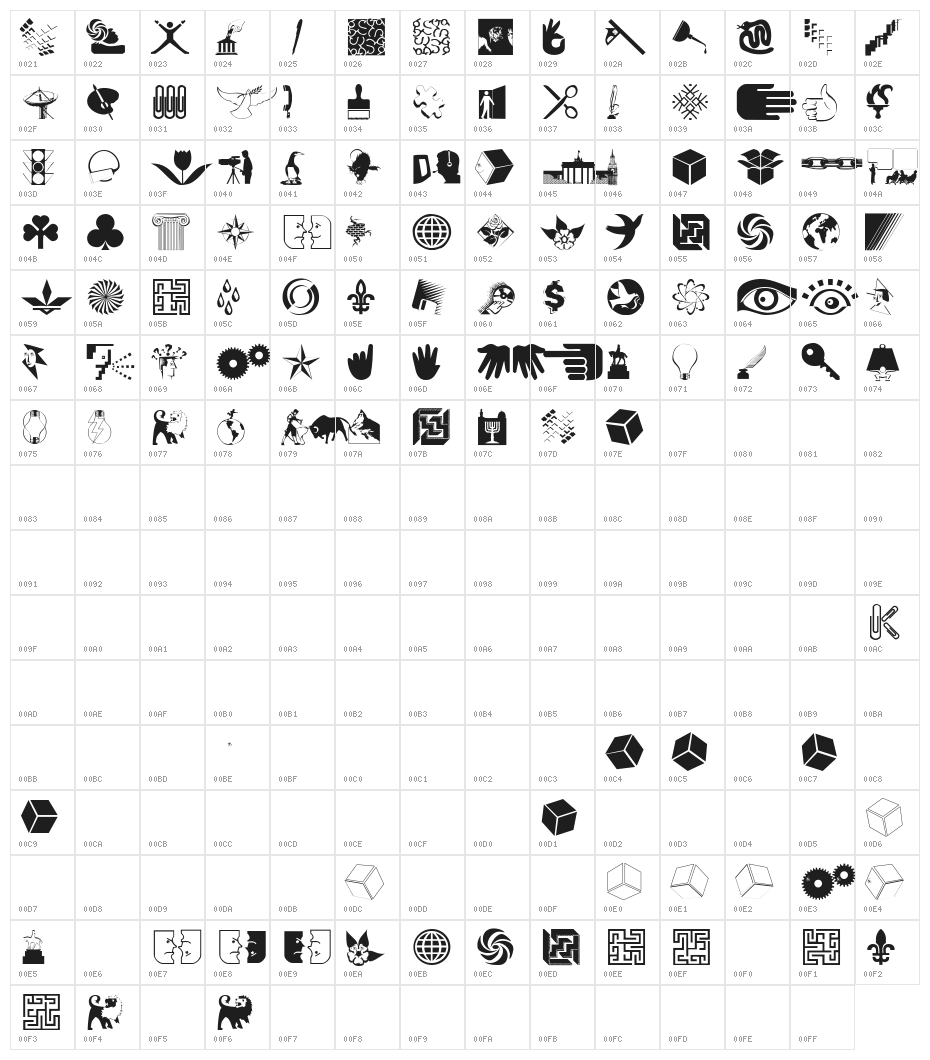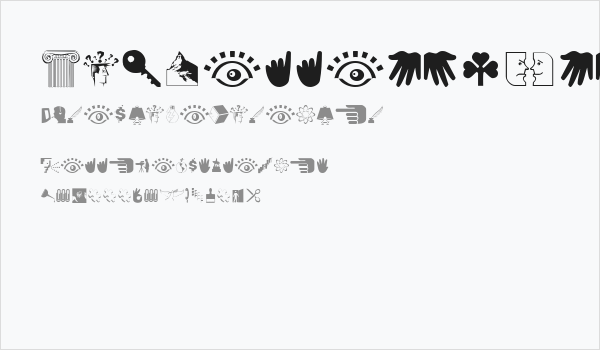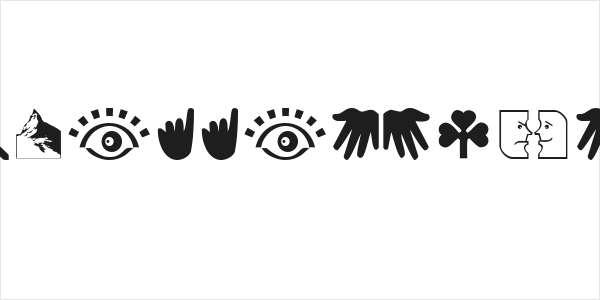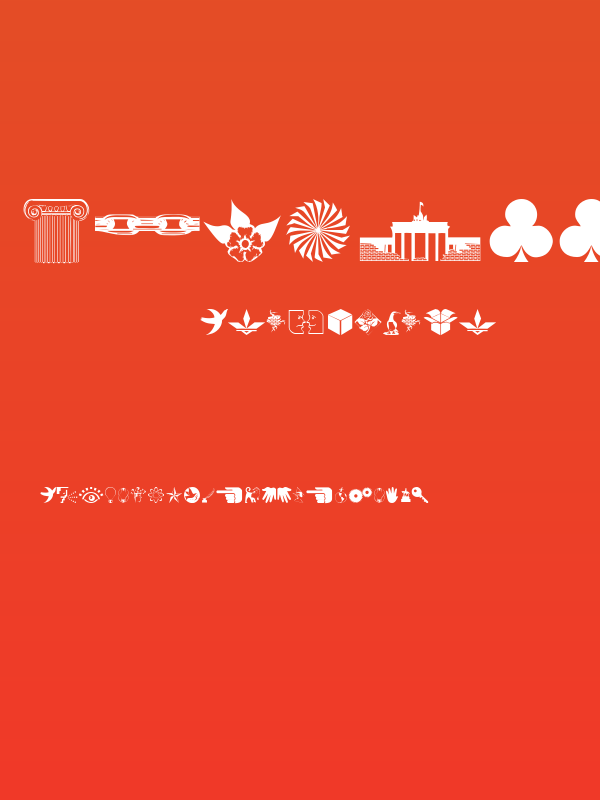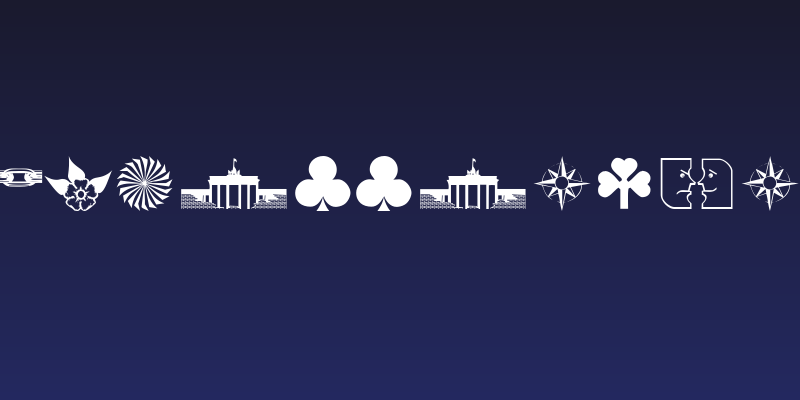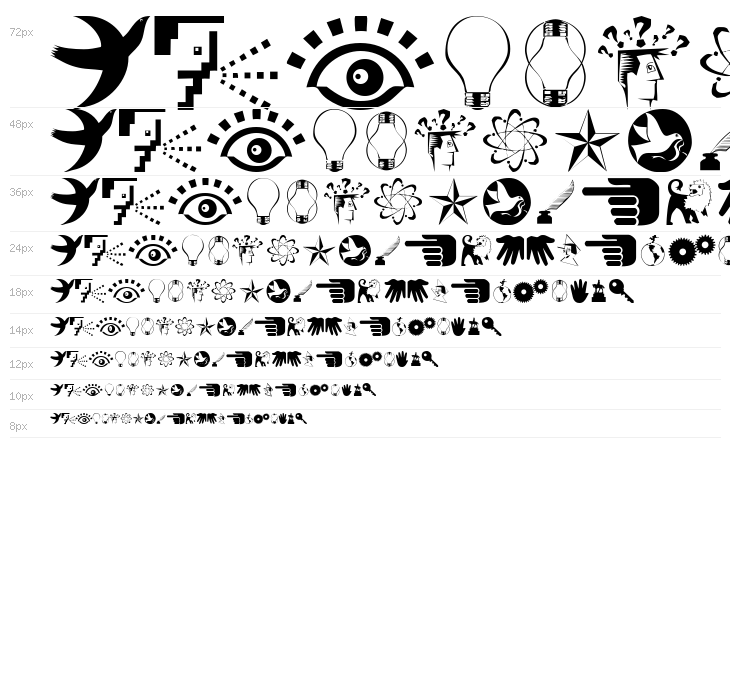
MiszellenKOne Font
MiszellenKOne Description
A collection of diverse pictograms and icons, each representing different objects, concepts, or actions, rendered in a bold, high-contrast black-and-white style with minimal detail and strong silhouettes.
| Overall Style | Decorative, Modern |
| Use Case | Icons, Logos, Signage, Infographics |
| Proposed Projects | Infographics, signage, educational materials, presentations, visual communication, branding for creative industries. |